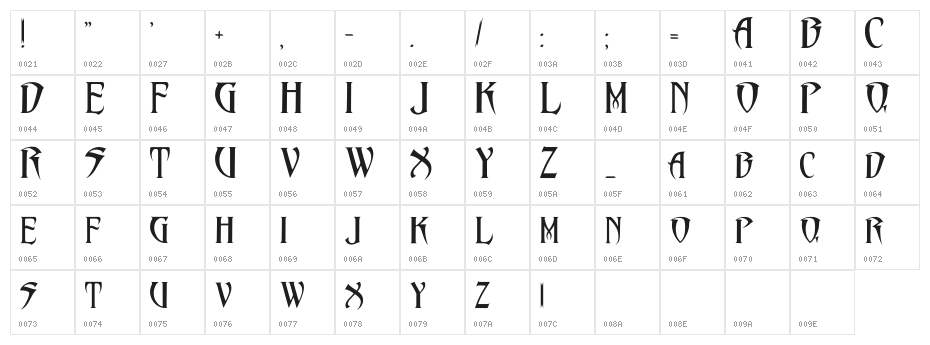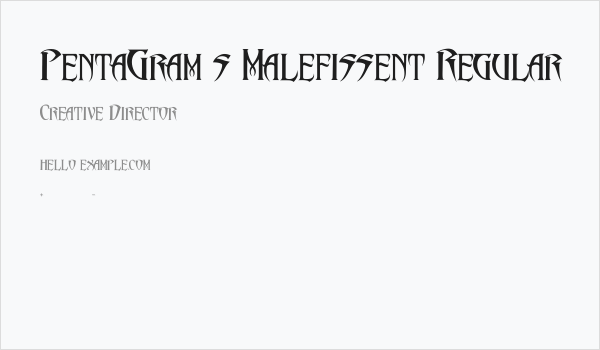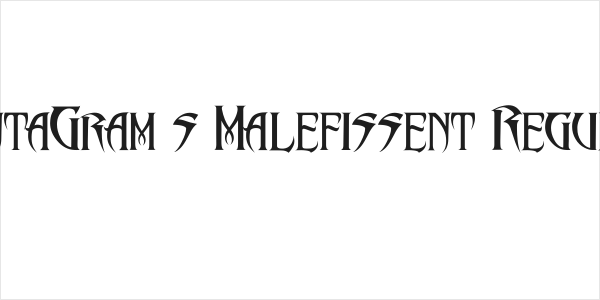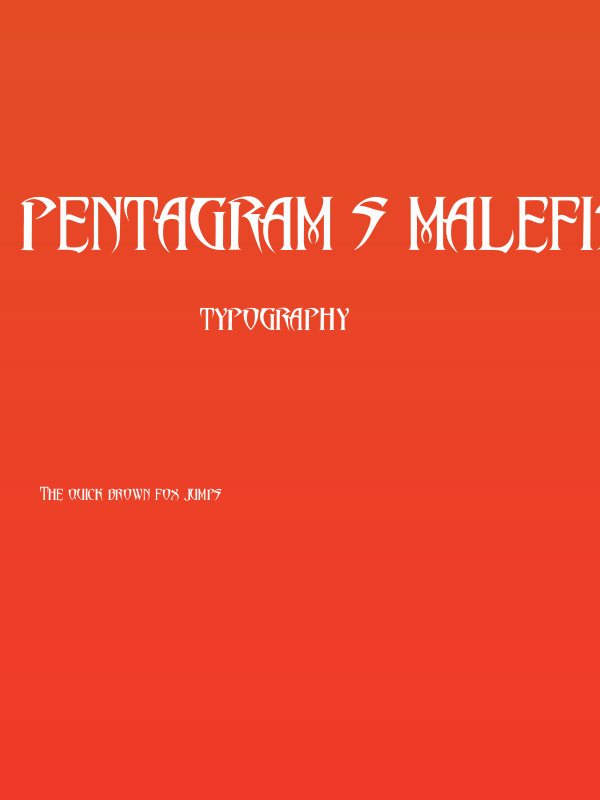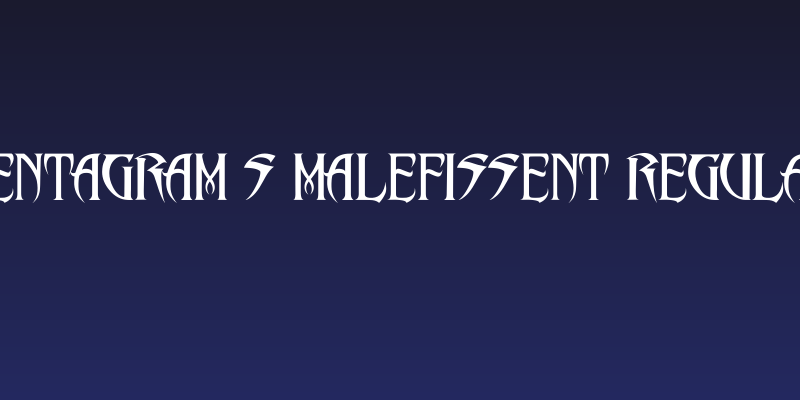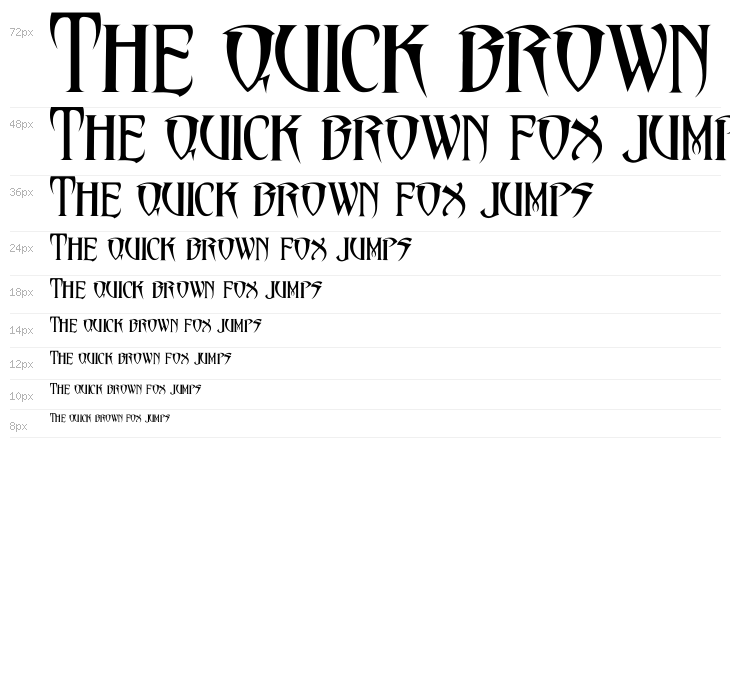
PentaGram s Malefissent Regular Font
PentaGram s Malefissent Regular Description
This font features a dramatic and bold style with sharp, angular lines and a gothic influence. The uppercase letters are particularly striking, with exaggerated serifs and a medieval flair. The lowercase letters maintain the same aesthetic, offering a cohesive look throughout. The numbers and special characters are designed with the same attention to detail, making them suitable for thematic designs. The overall appearance is both elegant and imposing, ideal for creating a sense of mystery or grandeur.
Overall StyleGothic, Decorative
Proposed ProjectsIdeal for fantasy-themed projects, book covers, movie posters, and branding that requires a gothic or medieval touch.